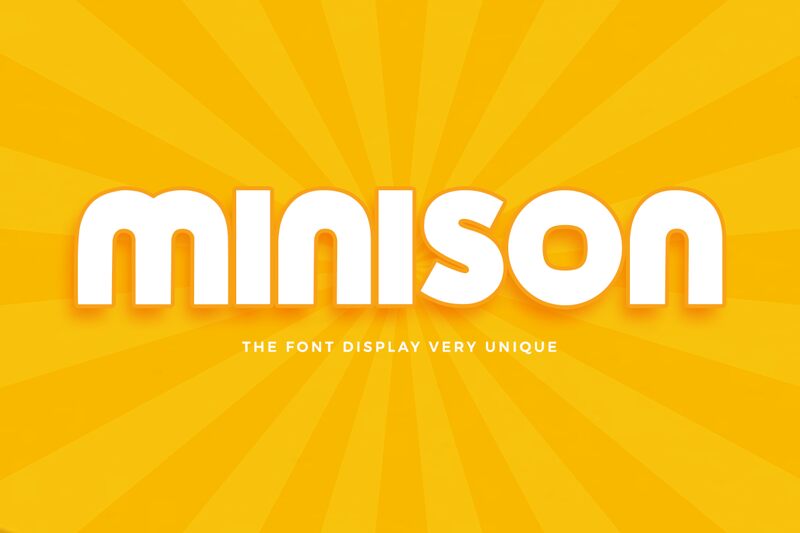
minison
Meet Minison, the bold and dynamic sans serif font designed by Kong Font. With its extra-bold weight, Minison commands attention and makes a powerful statement in any design project.
Its clean and modern style lends itself perfectly to corporate branding, packaging design, and editorial layouts. Whether you're creating a sleek logo or crafting eye-catching headlines, Minison is the go-to font for projects that require a strong and confident presence.
Give your designs an edge with Minison's striking typography that leaves a lasting impression on viewers.